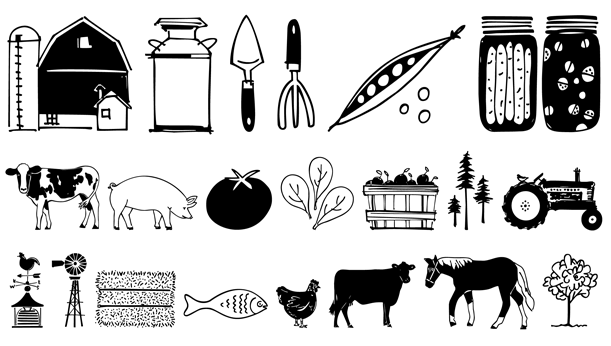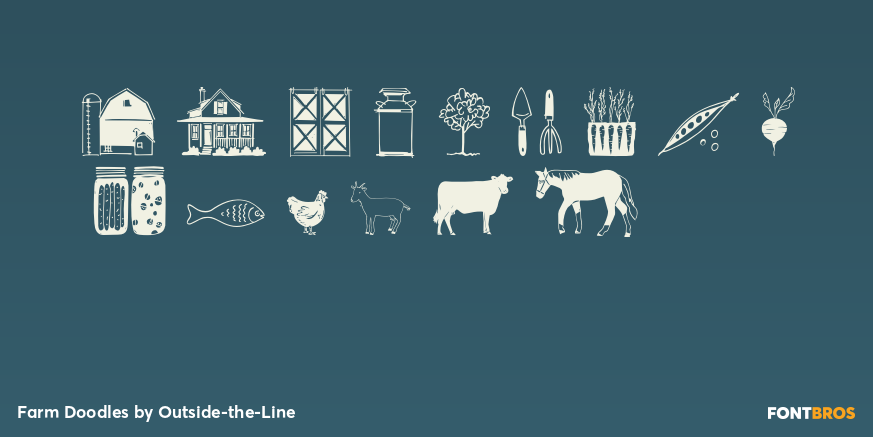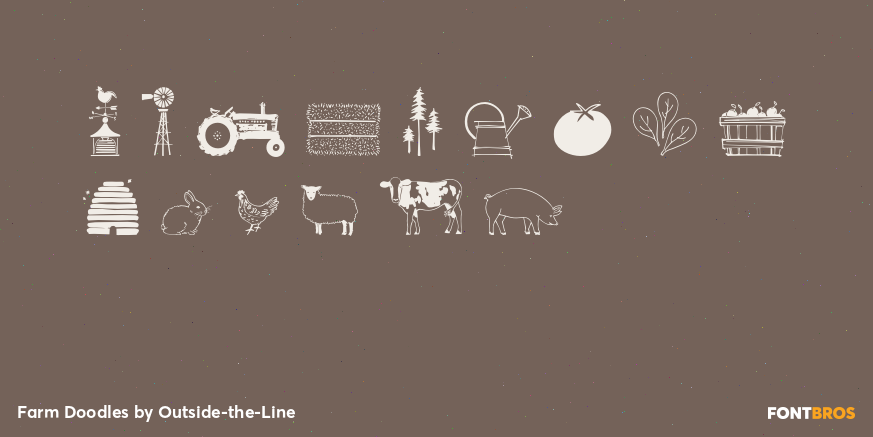
Farm Doodles
Font Family by Outside-the-Line
Farm Doodles... perfect collection of illustrations to be used for everything from the farm to table movement to the current trend of weddings on a farm. 30 illustrations of farm animals... beehive, fish, bunny, chickens, cows, goat, sheep, pig and horse. Farm buildings, weather vane, windmill, tractor, milk can, hay bale, trees. And food... tomato, carrots, peas, spinach, apples, beets. Mix and match with other Outside the Line illustration fonts.